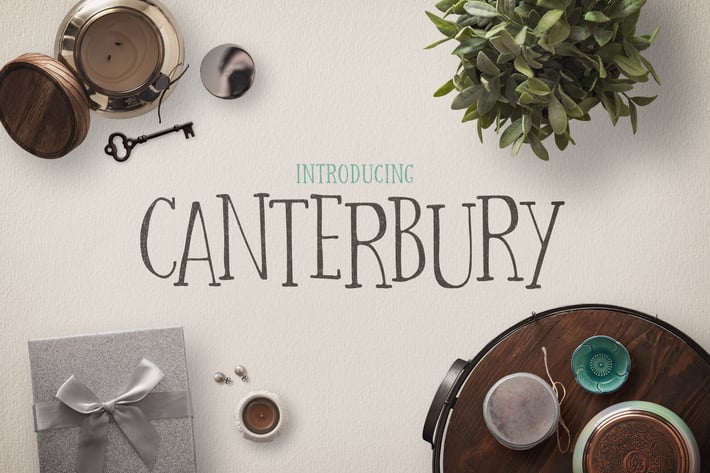
Canterbury Font + Bonus Mockups
Canterbury is a classy and whimsical, handmade serif typeface with refined character and a ton of flexibility. It's well suited to anything from logos, vintage graphics, child-like type, and much more.
OpenType features include various contextual and stylistic alternates for added customization. Webfont licensing and multilingual support are also included, see the preview images for the full set of included glyphs.